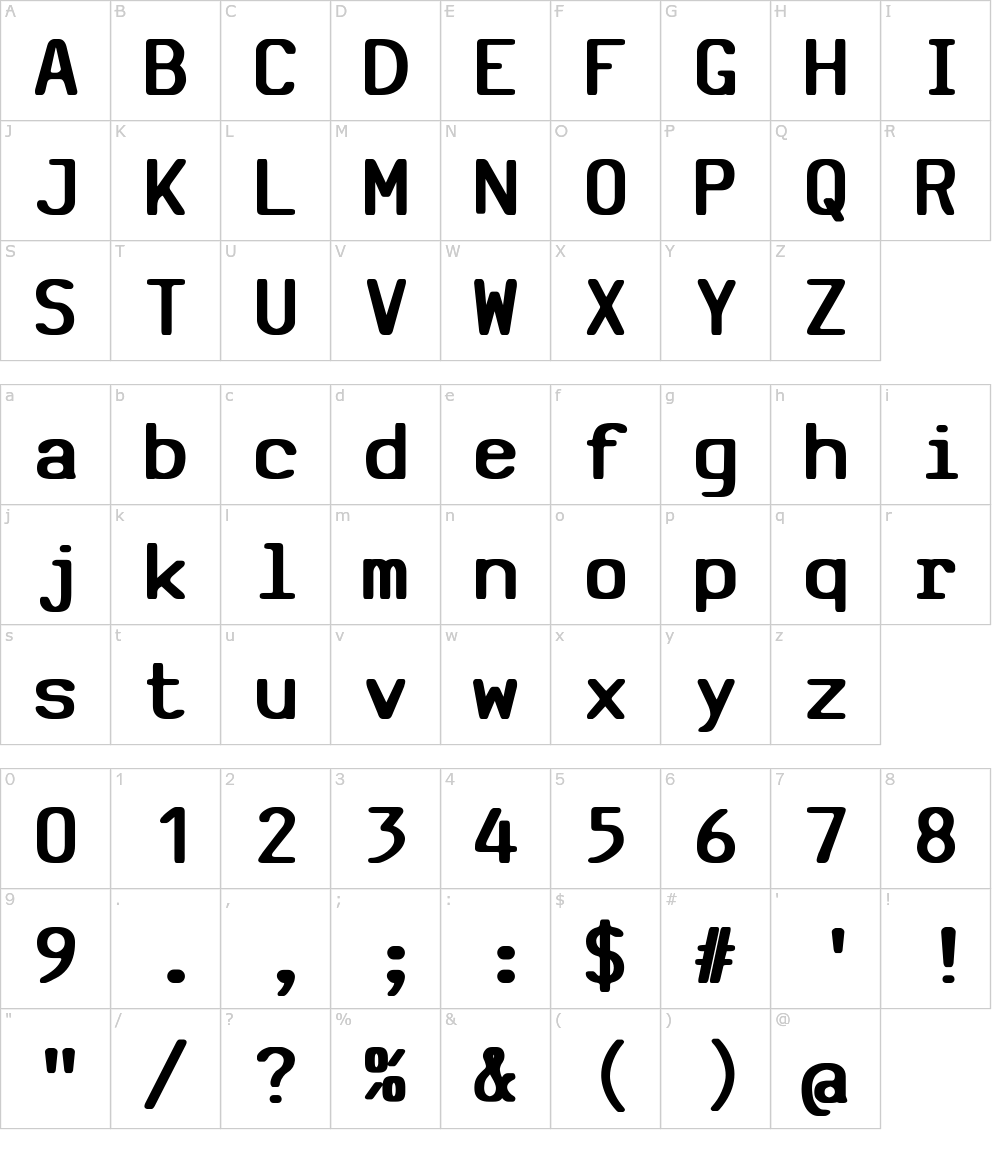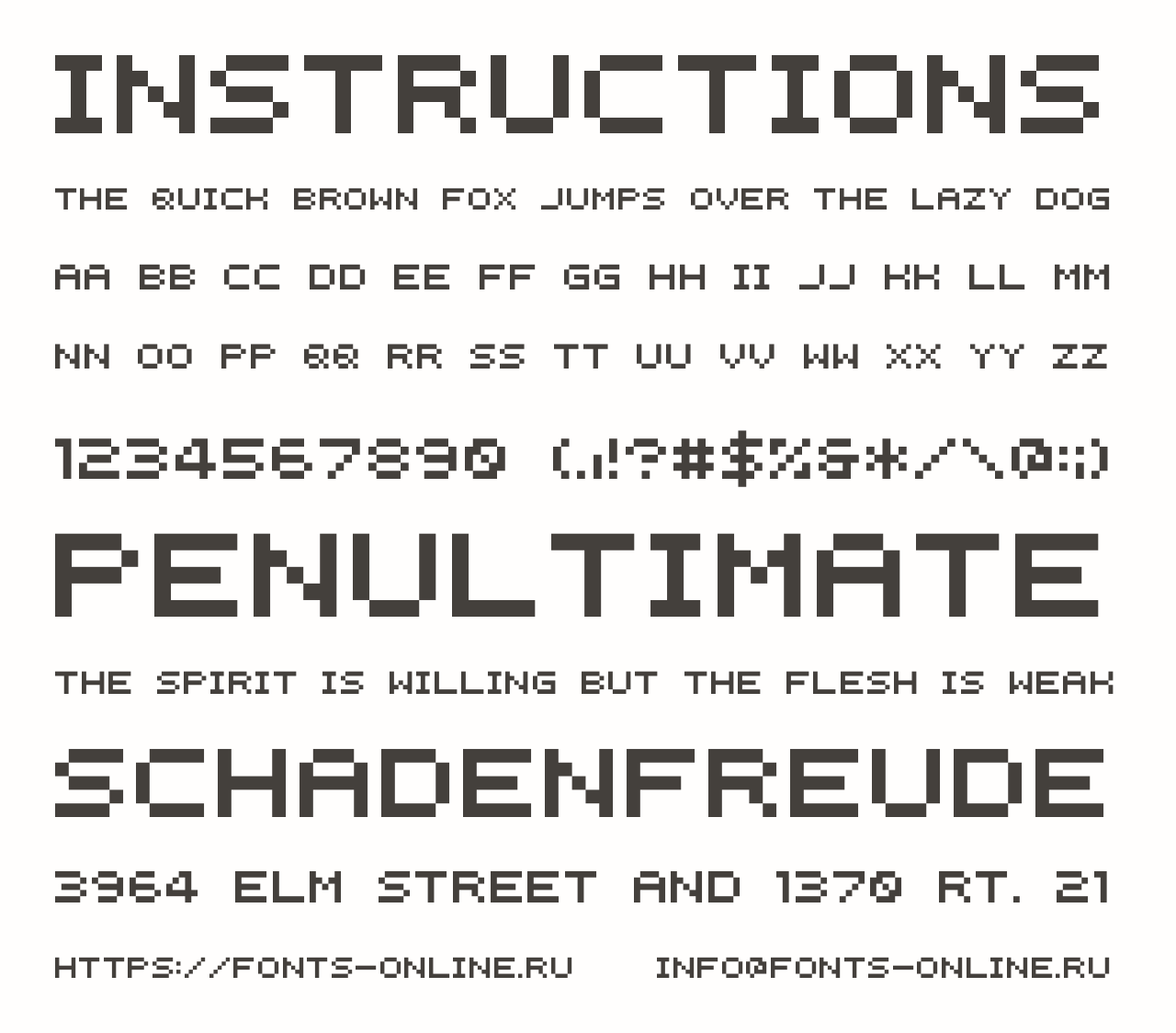
Best Fonts For Instruction Manual . However, fonts like arial and helvetica are widely recognized for. The best font for readability often depends on the context and medium. Anything in code, however (html, c++, what have. For most manuals, black arial text on a white background is a good choice. When creating a user manual, it is important to choose the best font for user manual that is readable to readers. In this post, we shall focus on the 25 best fonts that you can use on professional documents and reports. We shall also see how.
We shall also see how. In this post, we shall focus on the 25 best fonts that you can use on professional documents and reports. For most manuals, black arial text on a white background is a good choice. Anything in code, however (html, c++, what have. When creating a user manual, it is important to choose the best font for user manual that is readable to readers. However, fonts like arial and helvetica are widely recognized for. The best font for readability often depends on the context and medium.
Best Fonts For Instruction Manual Anything in code, however (html, c++, what have. In this post, we shall focus on the 25 best fonts that you can use on professional documents and reports. However, fonts like arial and helvetica are widely recognized for. When creating a user manual, it is important to choose the best font for user manual that is readable to readers. The best font for readability often depends on the context and medium. Anything in code, however (html, c++, what have. We shall also see how. For most manuals, black arial text on a white background is a good choice.
11 Best Classic Fonts That Never Die [+ Why using them] Alvaro Trigo Best Fonts For Instruction Manual We shall also see how. Anything in code, however (html, c++, what have. When creating a user manual, it is important to choose the best font for user manual that is readable to readers. The best font for readability often depends on the context and medium. However, fonts like arial and helvetica are widely recognized for. In this post, we. Best Fonts For Instruction Manual.
Label Applications, Shipping Instructions & Fonts Precious Labels Best Fonts For Instruction Manual For most manuals, black arial text on a white background is a good choice. Anything in code, however (html, c++, what have. When creating a user manual, it is important to choose the best font for user manual that is readable to readers. However, fonts like arial and helvetica are widely recognized for. In this post, we shall focus on. Best Fonts For Instruction Manual.
Choosing Fonts for Technical Documentation Best Fonts For Instruction Manual The best font for readability often depends on the context and medium. However, fonts like arial and helvetica are widely recognized for. We shall also see how. For most manuals, black arial text on a white background is a good choice. When creating a user manual, it is important to choose the best font for user manual that is readable. Best Fonts For Instruction Manual.
Manual Font Best Fonts For Instruction Manual However, fonts like arial and helvetica are widely recognized for. When creating a user manual, it is important to choose the best font for user manual that is readable to readers. For most manuals, black arial text on a white background is a good choice. We shall also see how. Anything in code, however (html, c++, what have. In this. Best Fonts For Instruction Manual.
Instructions Font Best Fonts For Instruction Manual We shall also see how. When creating a user manual, it is important to choose the best font for user manual that is readable to readers. Anything in code, however (html, c++, what have. The best font for readability often depends on the context and medium. In this post, we shall focus on the 25 best fonts that you can. Best Fonts For Instruction Manual.
Ikea Instruction Manual Font by morrisdonald178 Issuu Best Fonts For Instruction Manual When creating a user manual, it is important to choose the best font for user manual that is readable to readers. The best font for readability often depends on the context and medium. For most manuals, black arial text on a white background is a good choice. However, fonts like arial and helvetica are widely recognized for. Anything in code,. Best Fonts For Instruction Manual.
15 Perfect Font Combinations for Your Next Design Best Fonts For Instruction Manual For most manuals, black arial text on a white background is a good choice. The best font for readability often depends on the context and medium. When creating a user manual, it is important to choose the best font for user manual that is readable to readers. In this post, we shall focus on the 25 best fonts that you. Best Fonts For Instruction Manual.
How to Choose the Right Business Infographic Fonts Venngage Best Fonts For Instruction Manual However, fonts like arial and helvetica are widely recognized for. For most manuals, black arial text on a white background is a good choice. The best font for readability often depends on the context and medium. When creating a user manual, it is important to choose the best font for user manual that is readable to readers. In this post,. Best Fonts For Instruction Manual.
SV Basic Manual Font Best Fonts For Instruction Manual For most manuals, black arial text on a white background is a good choice. We shall also see how. In this post, we shall focus on the 25 best fonts that you can use on professional documents and reports. When creating a user manual, it is important to choose the best font for user manual that is readable to readers.. Best Fonts For Instruction Manual.